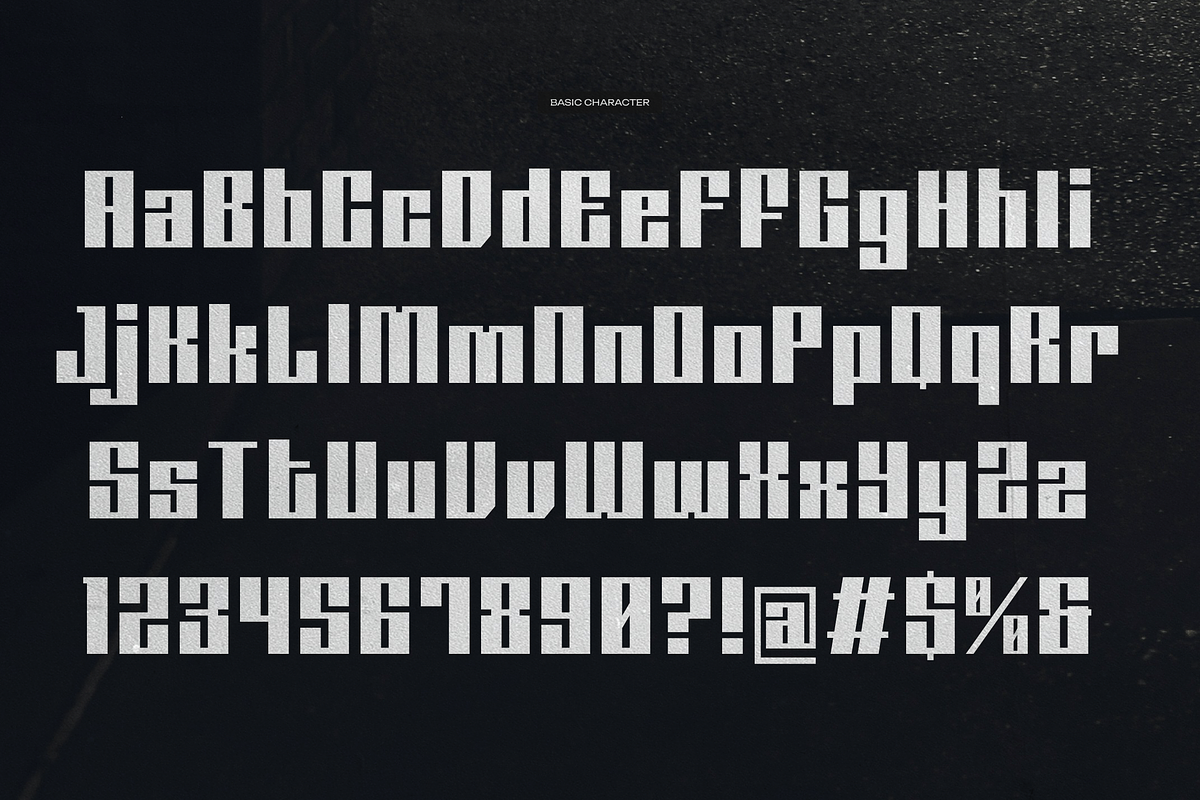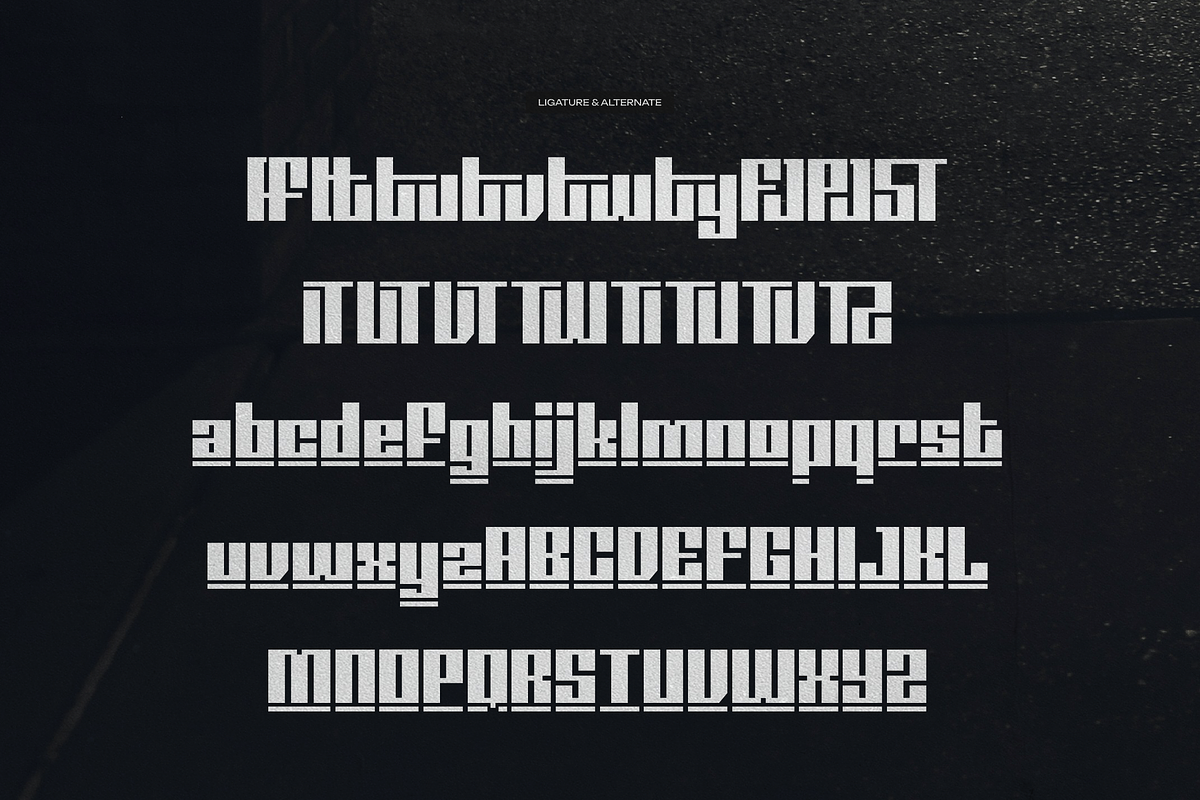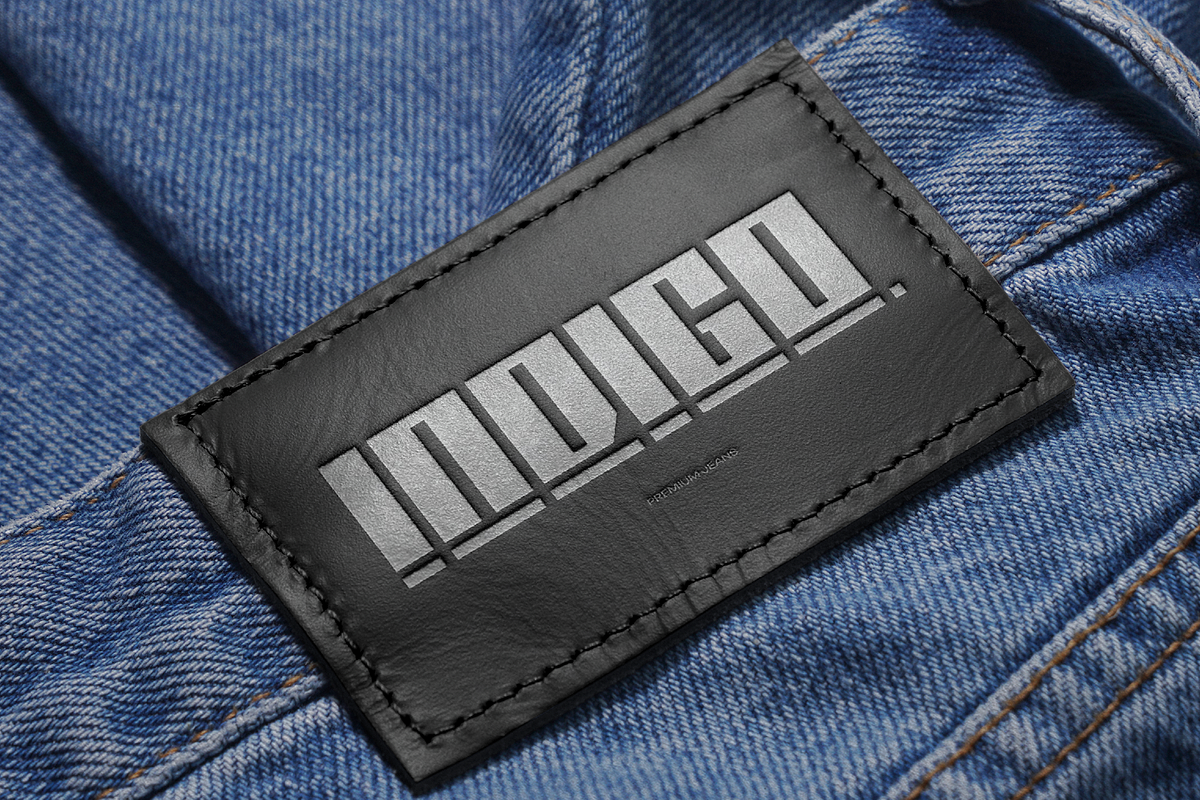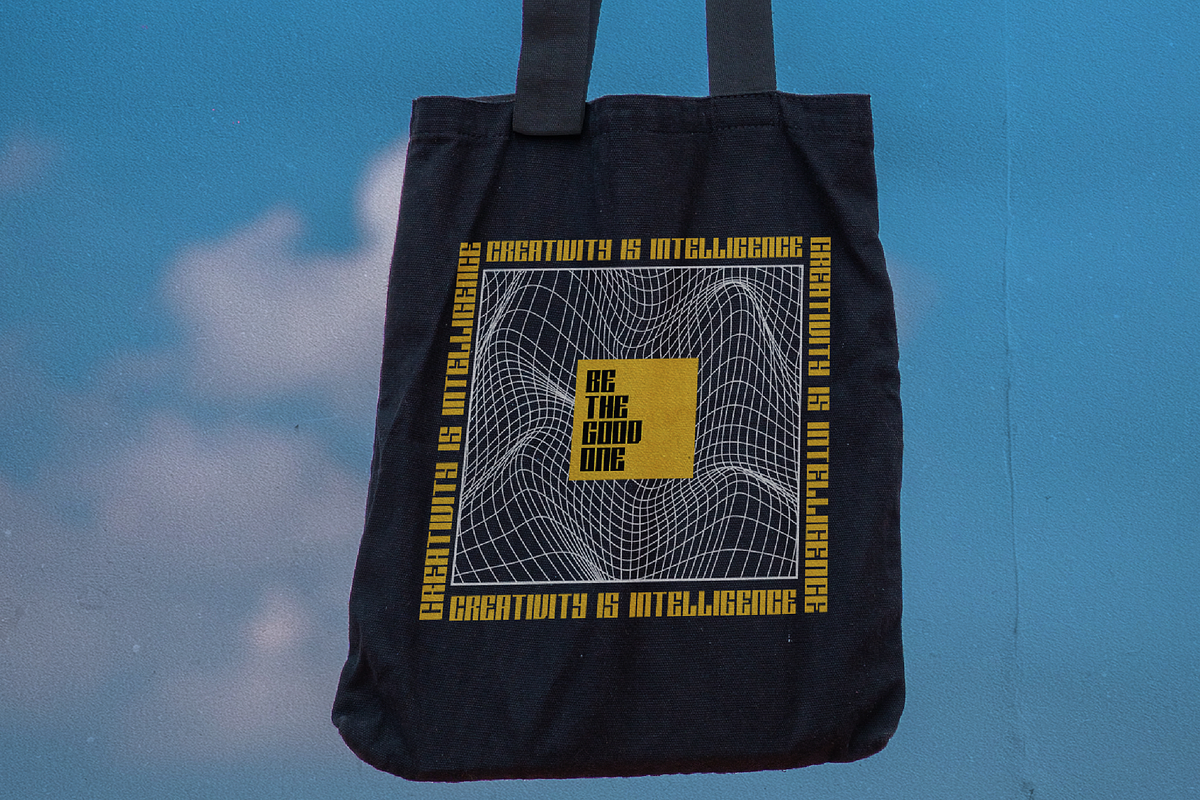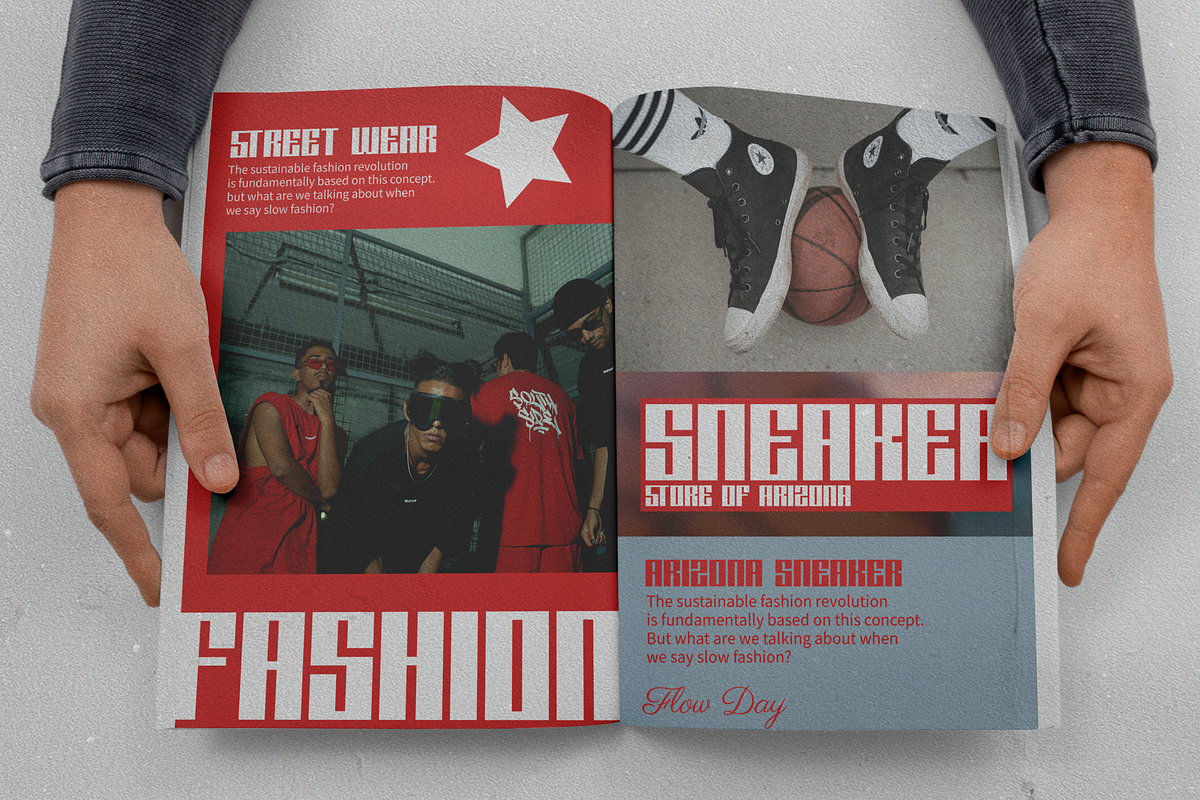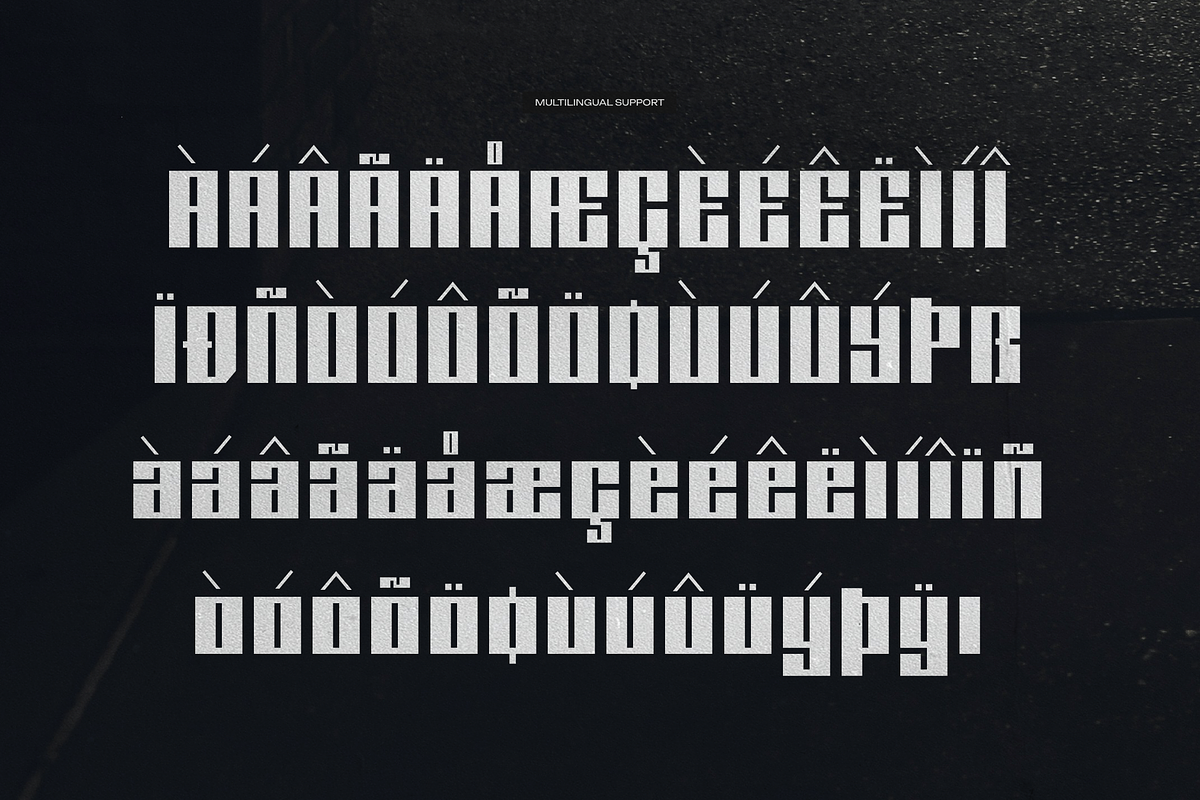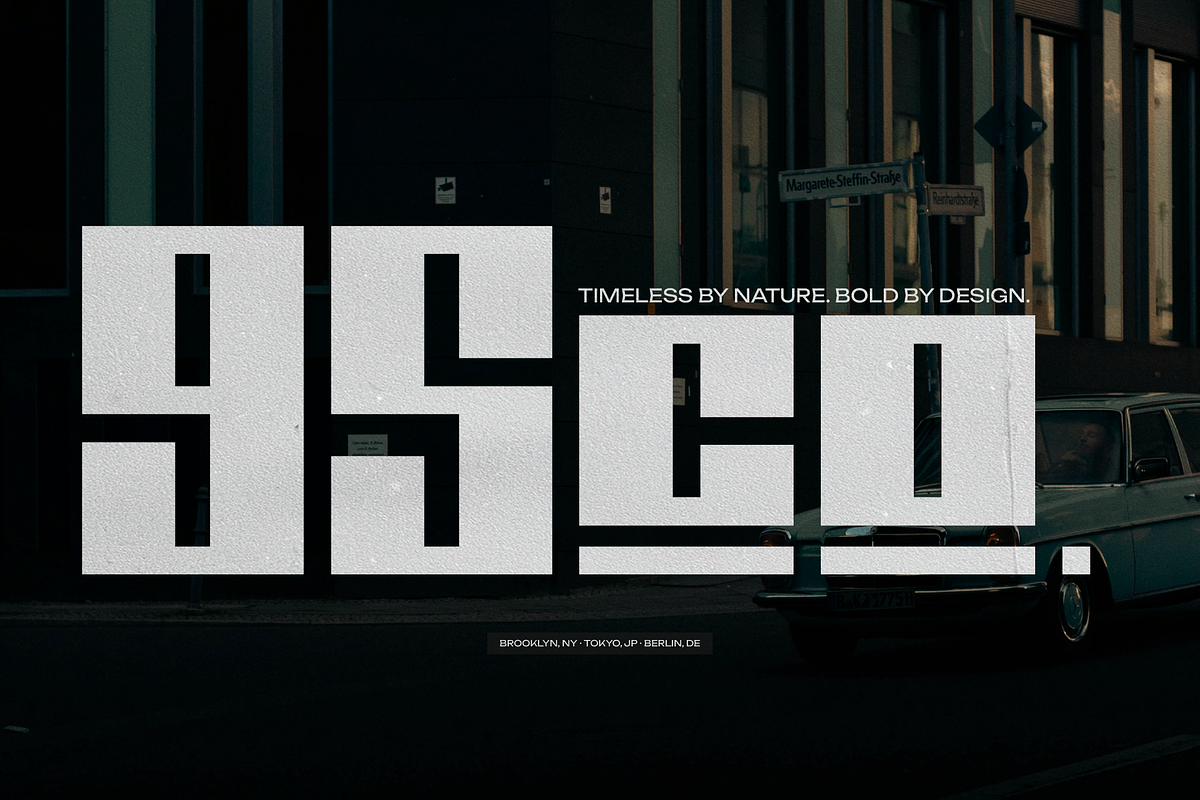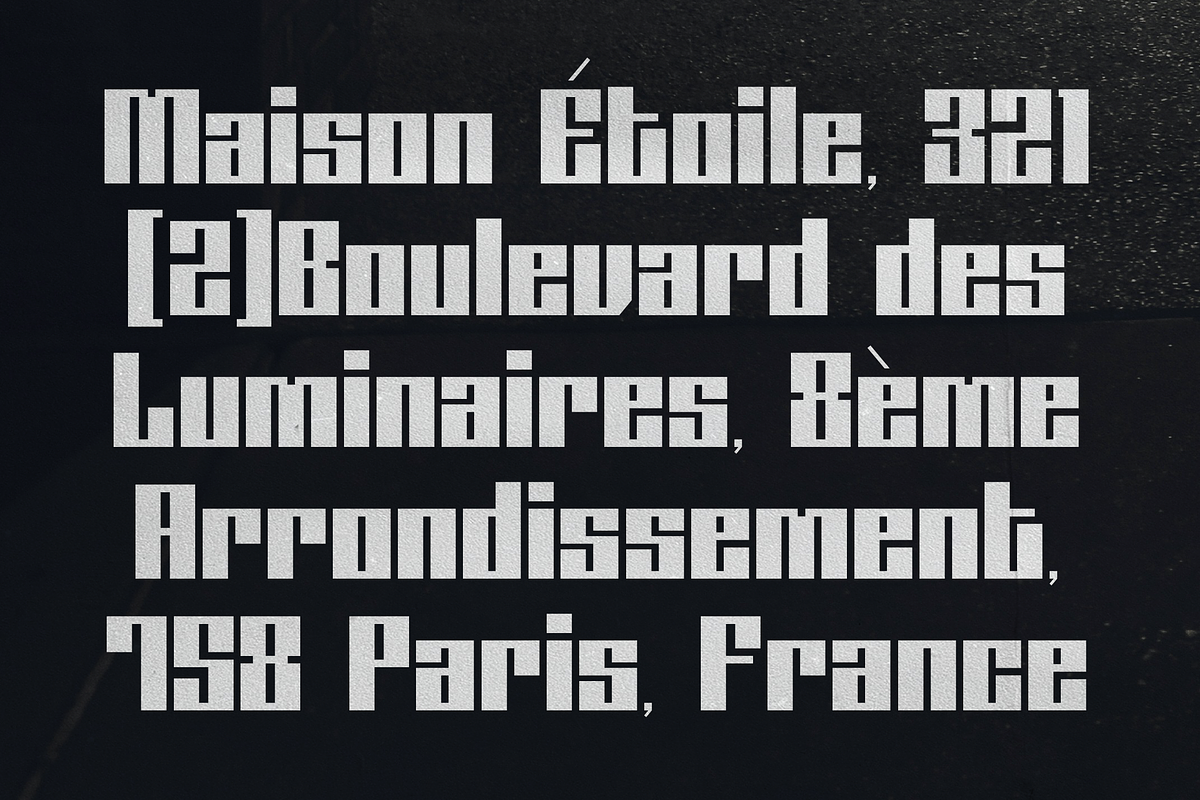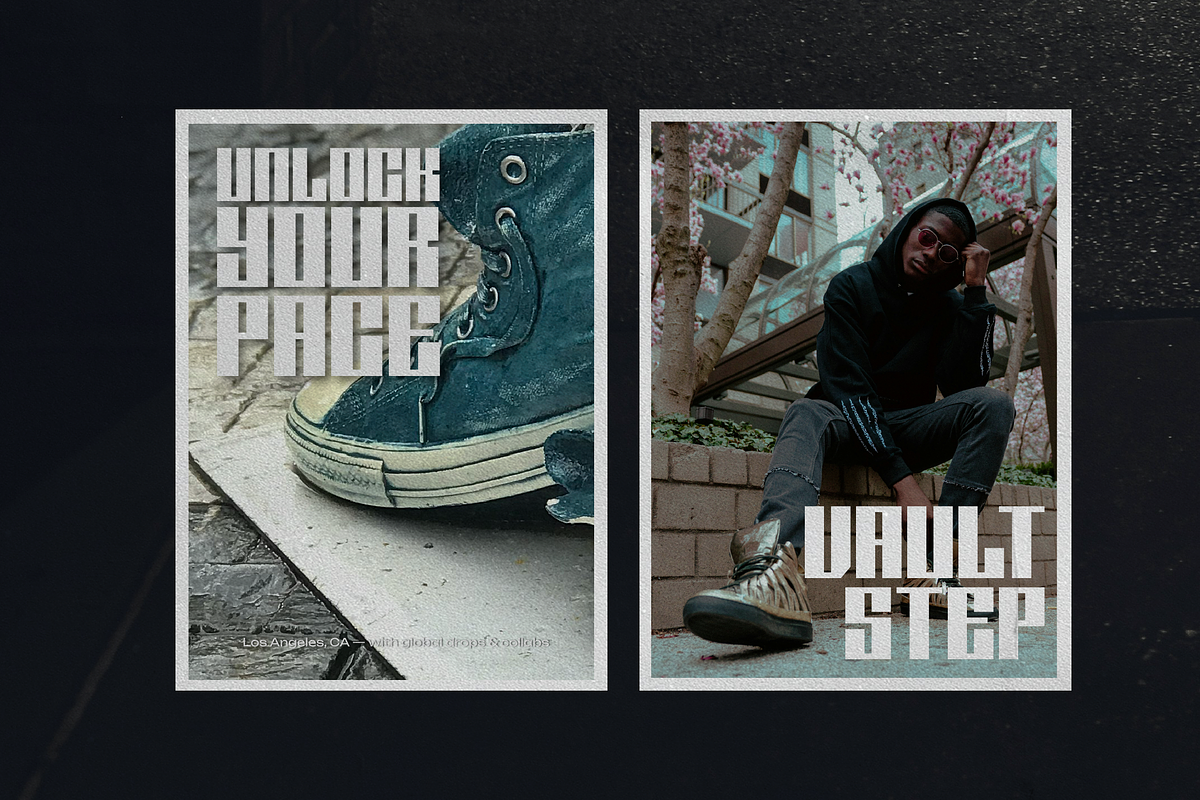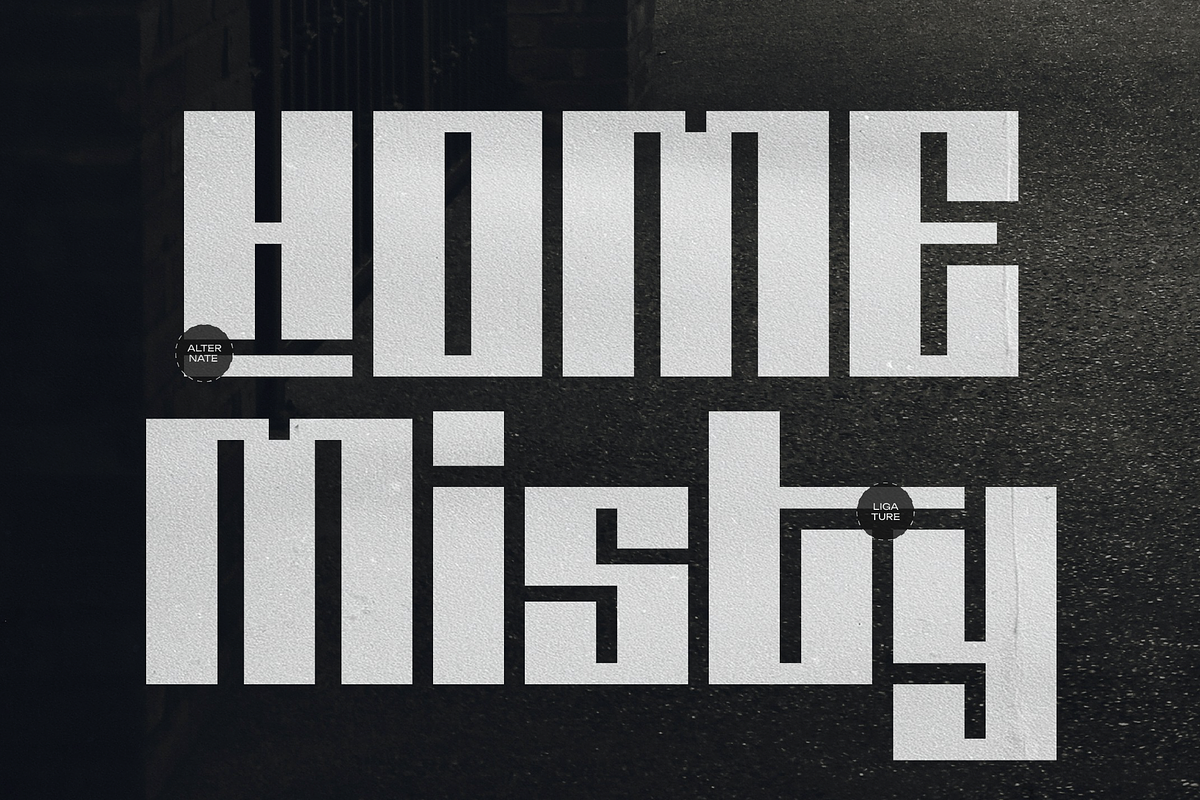
Doxy Bold | Display Geometric Sans
Doxy Bold | Display Geometric Sans, from Gracetypestudio, suitable for any projects such as: logos, branding projects, homeware designs, product packaging, mugs, quotes, posters, shopping bags, t-shirts, book covers, name card, invitation cards, greeting cards, label, photography, watermark, special events, and all your other lovely projects that need a Display Geometric Sans taste.